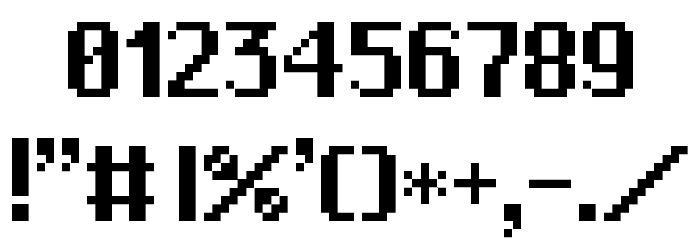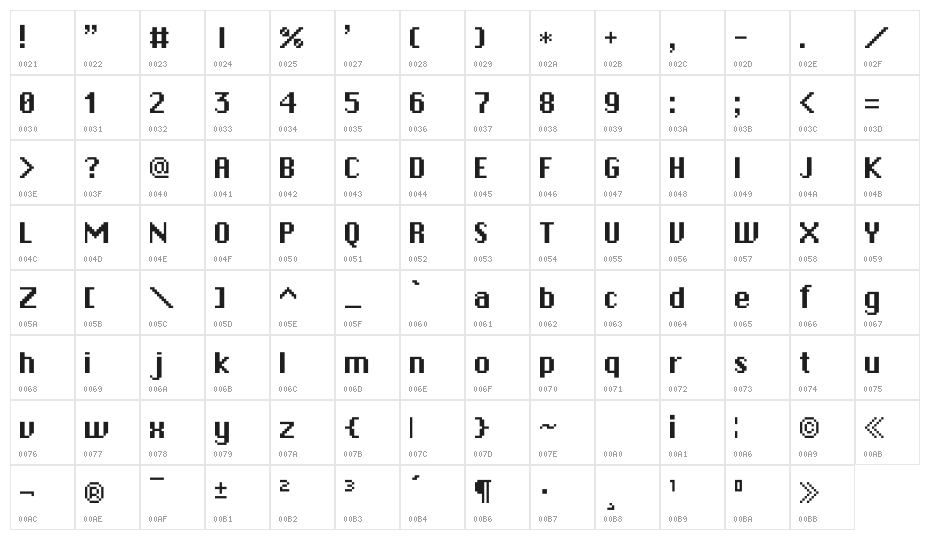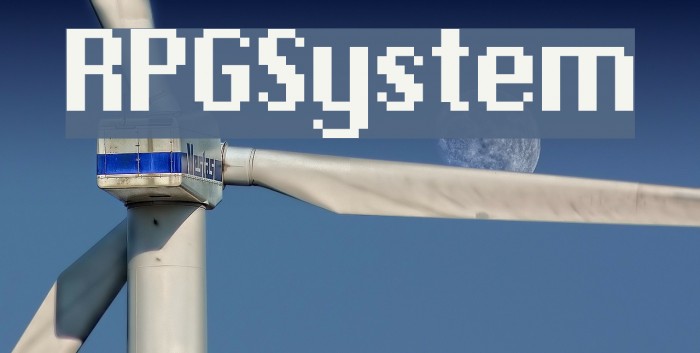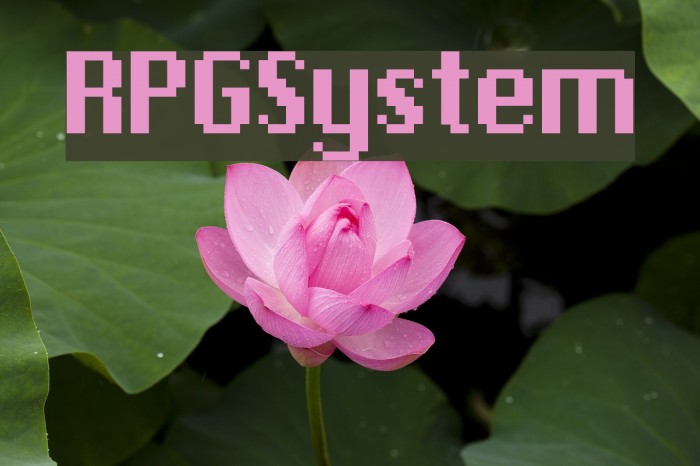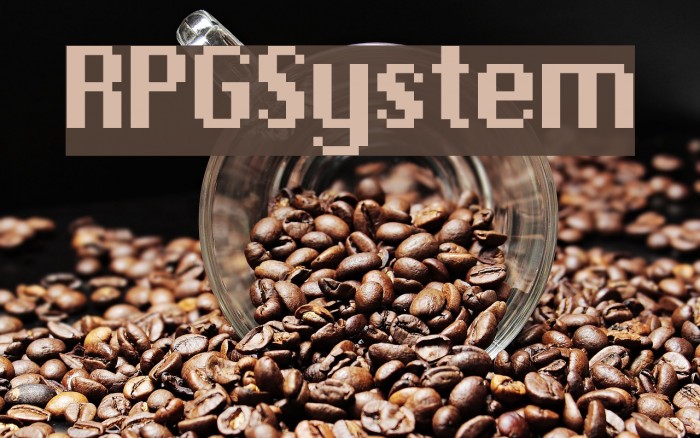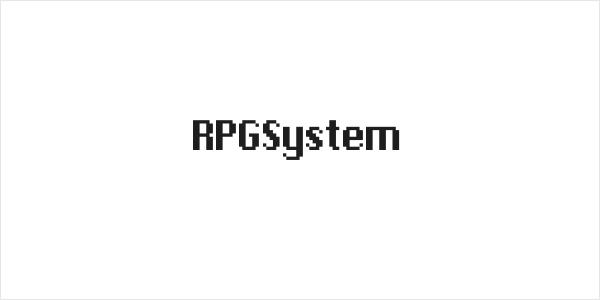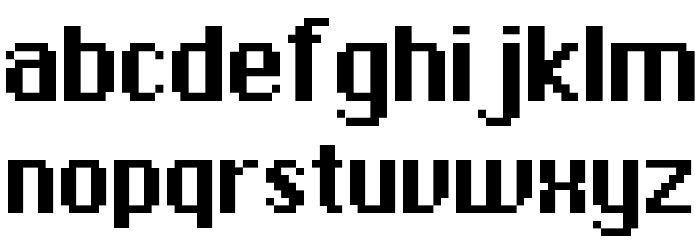
RPGSystem Font
RPGSystem Description
This font is a bold, pixelated typeface reminiscent of classic video game aesthetics. Its blocky and geometric design gives it a retro feel, ideal for projects that aim to evoke nostalgia or a digital theme. The uppercase and lowercase letters maintain a consistent height, contributing to a uniform appearance. Numbers and special characters are crafted with the same pixelated style, ensuring cohesion across all text elements. The font's simplicity and clarity make it highly legible, even at smaller sizes, while its unique style adds a distinctive character to any design.
Axel Lymphos
Overall StyleVintage
Proposed ProjectsIdeal for video game designs, retro-themed posters, digital art, and tech-related branding.
Axel Lymphos